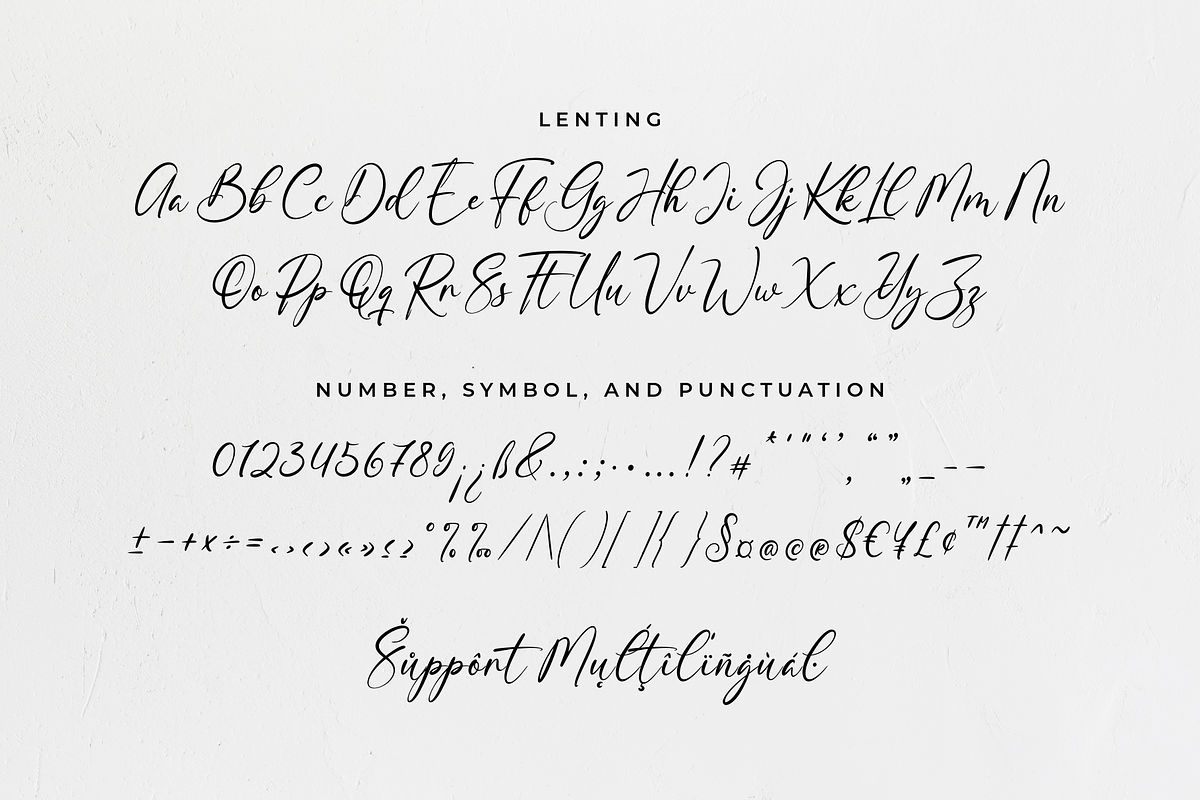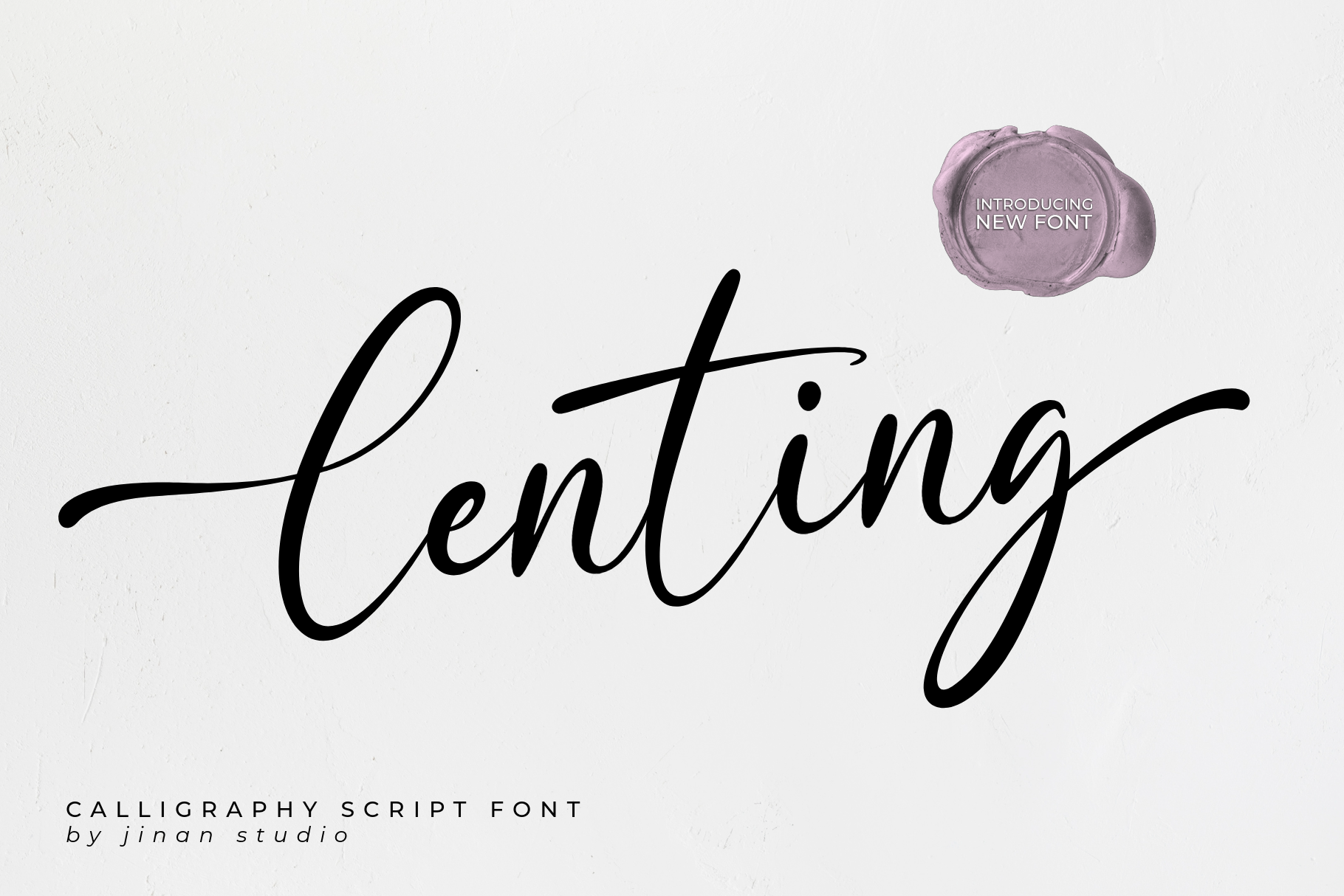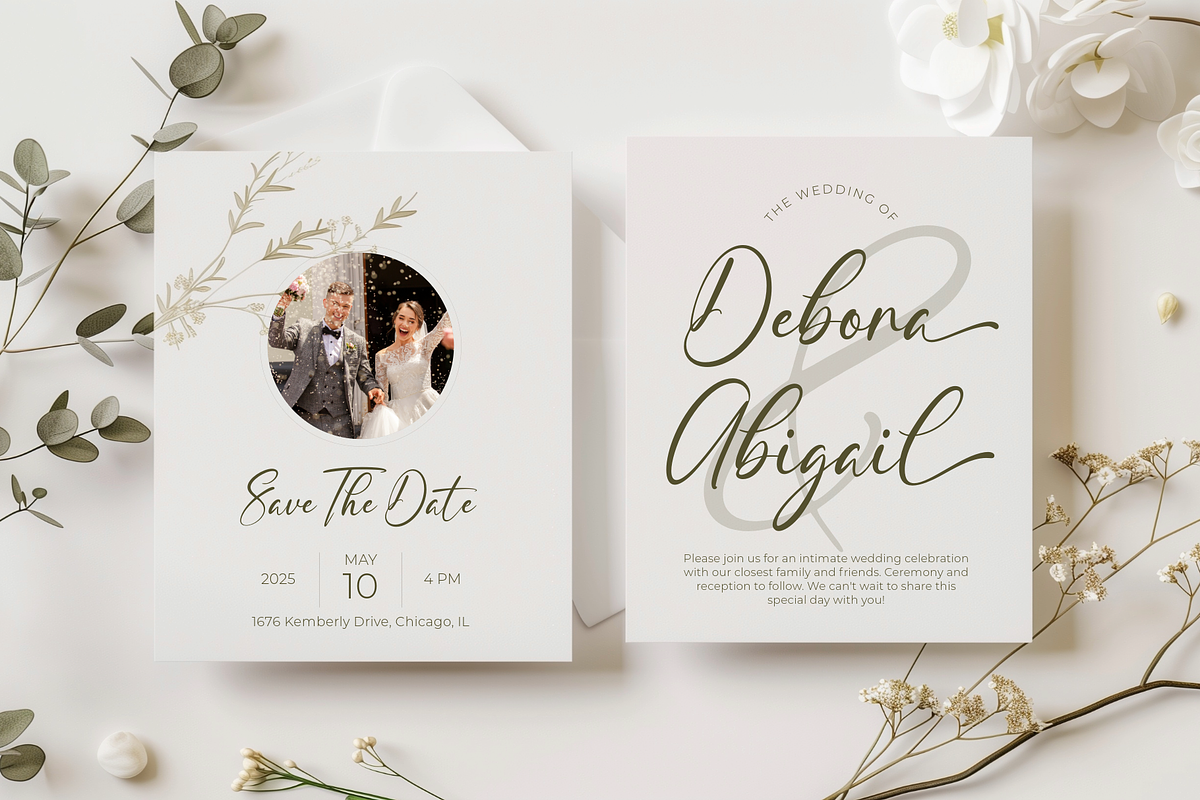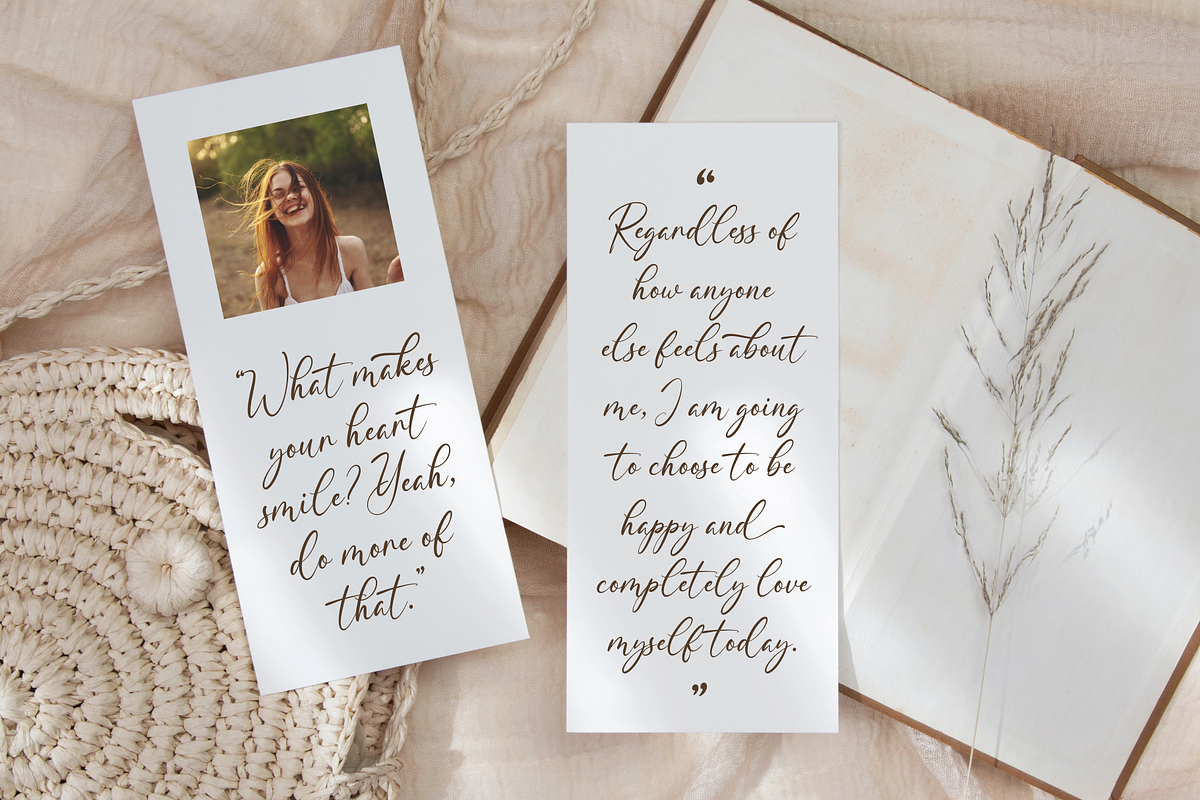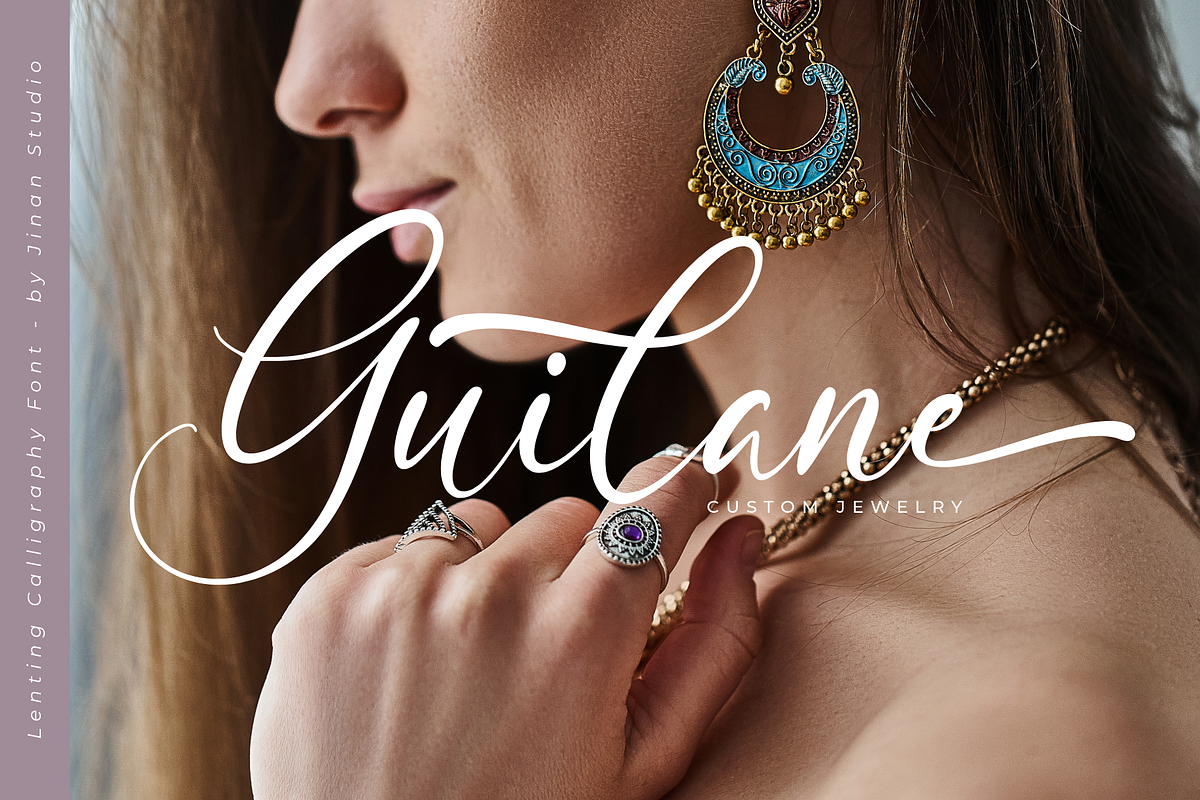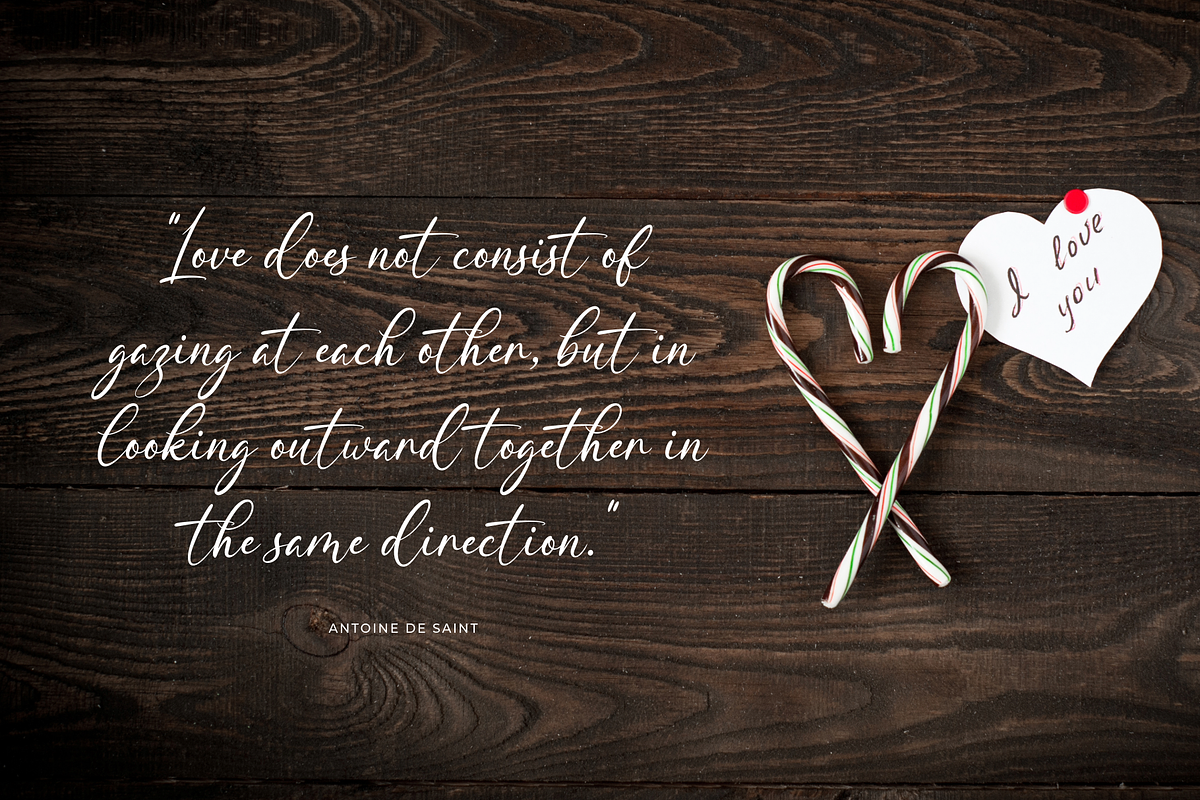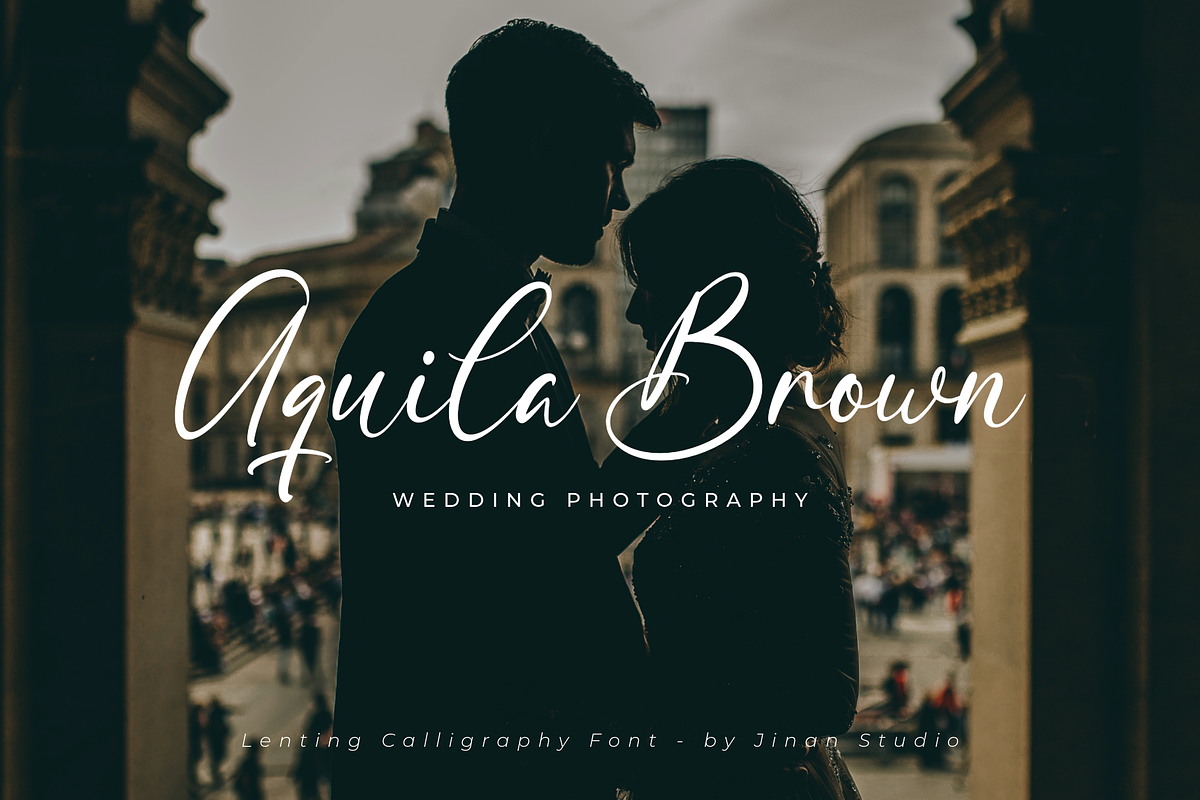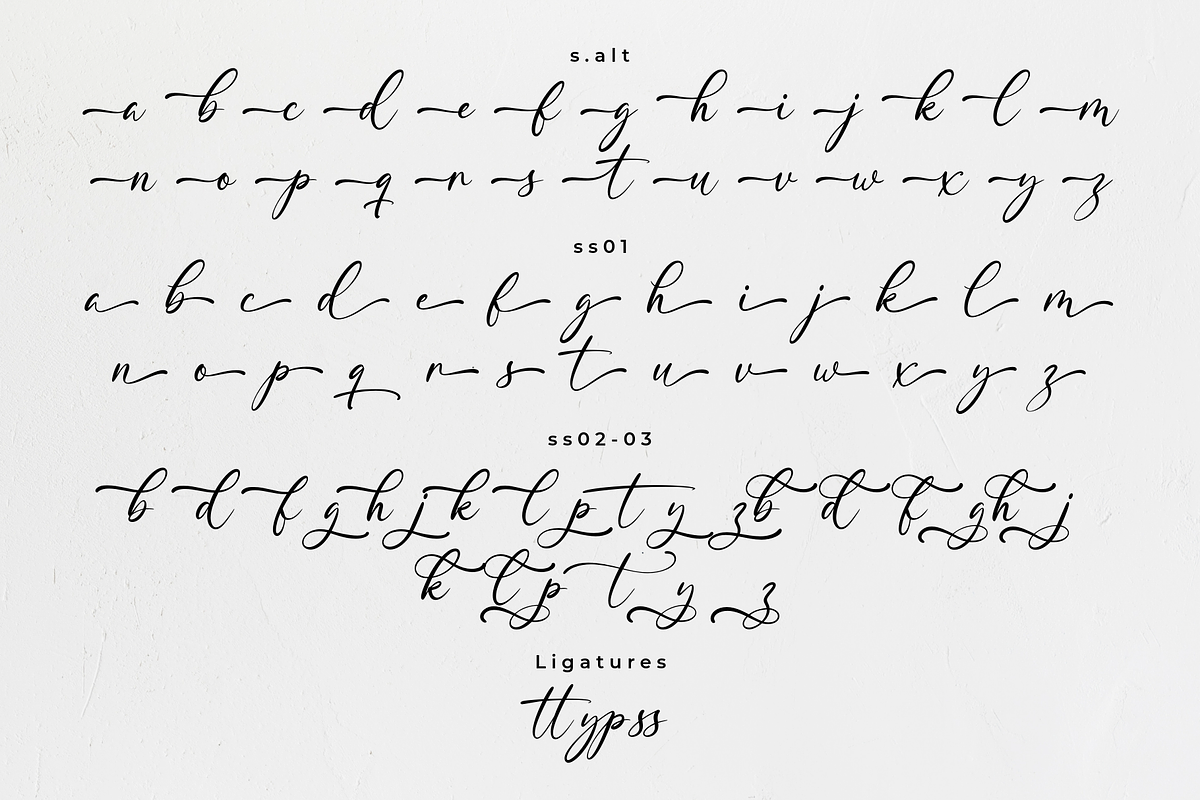
Lenting - Calligraphy Script Font
Lenting is a captivating calligraphy script font meticulously. This font radiates elegance and sophistication with its graceful strokes and fluid curves, making it ideal for a wide array of design projects. Whether you are creating wedding invitations, logos, or branding materials, Lenting adds a touch of class and refinement. Its versatile nature ensures that it will seamlessly integrate into any design, offering a timeless and stylish appeal. Embrace the artistry of Lenting to elevate your creative works with a unique and distinguished flair.
- A set of uppercase and lowercase glyphs
- Number, symbol, and punctuation
- Alternates and ligatures